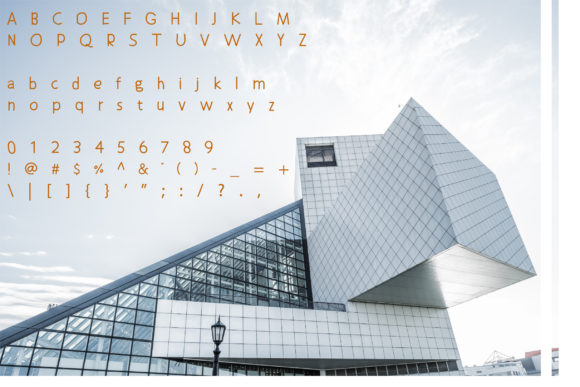
Introducing Flux Font: Elevate Your Design with Sophistication
Are you tired of using the same old fonts in your design projects? Look no further than Flux Font, a smart and sleek sans serif font that adds a unique touch to any design. With its sophisticated feel, Flux Font is perfect for designers and crafters looking to elevate their work and make a lasting impression.
What Makes Flux Font Stand Out?
Flux Font boasts a distinctive feel that sets it apart from other sans serif fonts. Its clean lines, precise curves, and carefully crafted letterforms create a visually appealing aesthetic that’s both modern and elegant. Whether you’re working on a branding project, website design, or print materials, Flux Font is sure to bring a level of sophistication and refinement to your work.
Key Features of Flux Font
- Unique feel: Flux Font’s distinctive style is sure to capture attention and leave a lasting impression.
- Sophisticated aesthetic: Perfect for high-end branding, luxury goods, and premium services.
- Clean and precise: Flux Font’s lines and curves are carefully crafted for maximum legibility and visual appeal.
- Versatile: Suitable for a wide range of design projects, from digital to print.
Why Choose Flux Font for Your Design Project?
With so many fonts available, why choose Flux Font for your design project? Here are just a few compelling reasons:
- Stand out from the crowd: Flux Font’s unique feel ensures your design won’t get lost in a sea of sameness.
- Elegance and sophistication: Add a touch of luxury to your design with Flux Font’s refined aesthetic.
- Easy to read: Flux Font’s clean lines and precise curves make it easy to read, even at small sizes.
- Flexible: Use Flux Font in a variety of design projects, from headings and titles to body text and captions.
How to Use Flux Font in Your Design Project
Using Flux Font in your design project is easy. Here are a few tips to get you started:
- Pair with complementary fonts: Combine Flux Font with other fonts to create a unique and visually appealing typography scheme.
- Experiment with sizes and colors: Play with different sizes and colors to add depth and interest to your design.
- Use for headings and titles: Flux Font is perfect for headings and titles, where its unique feel can really shine.
Whether you’re a seasoned designer or a crafty DIY enthusiast, here are a few tips for getting the most out of Flux Font:
- Keep it simple: Don’t be afraid to let Flux Font be the star of the show – its clean lines and precise curves make it a compelling choice for solo use.
- Play with texture and pattern: Add depth and interest to your design with texture and pattern – Flux Font provides a sophisticated backdrop for experimentation.
- Consider your audience: Think about your target audience and the tone you want to convey – Flux Font’s sophisticated aesthetic makes it perfect for high-end brands and luxury goods.
Flux Font is a smart and sleek sans serif font that adds a unique touch to any design project. With its sophisticated feel, clean lines, and precise curves, it’s perfect for designers and crafters looking to elevate their work and make a lasting impression. Whether you’re working on a branding project, website design, or print materials, Flux Font is sure to bring a level of elegance and refinement to your work.